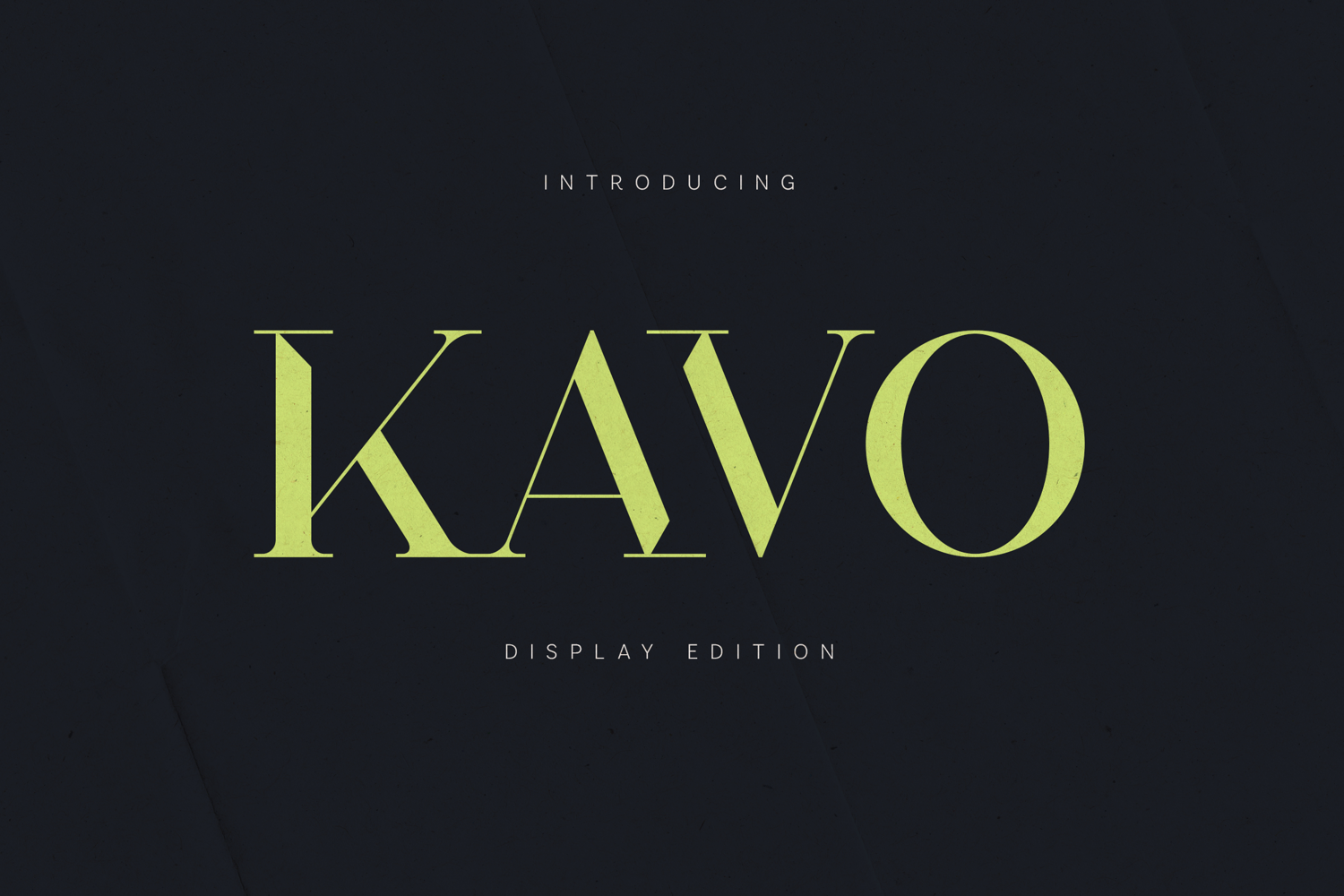
KAVO Elegant Display Font
Kavo – Display Edition is an elegant modern serif font designed for refined headlines and high-impact visual storytelling. Featuring high contrast strokes, sharp serifs, and graceful proportions, Kavo blends classic sophistication with a contemporary editorial feel.
Created for premium design work, Kavo is ideal for branding, magazines, fashion editorials, posters, luxury packaging, album covers, and statement typography. Its elegant structure and confident rhythm allow it to shine in large sizes while maintaining clarity and balance.
Kavo – Display Edition is made for designers who want timeless elegance, modern refinement, and expressive serif typography that commands attention.